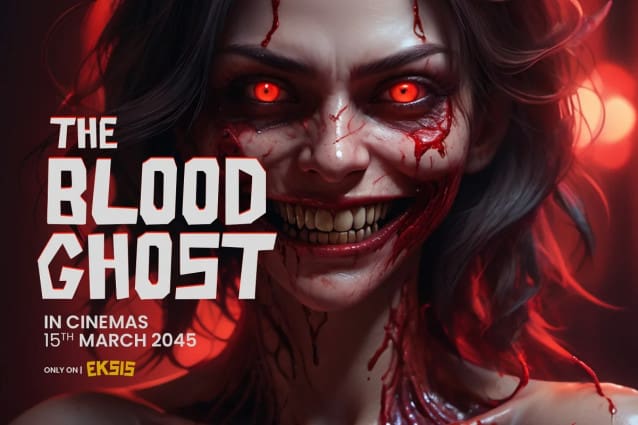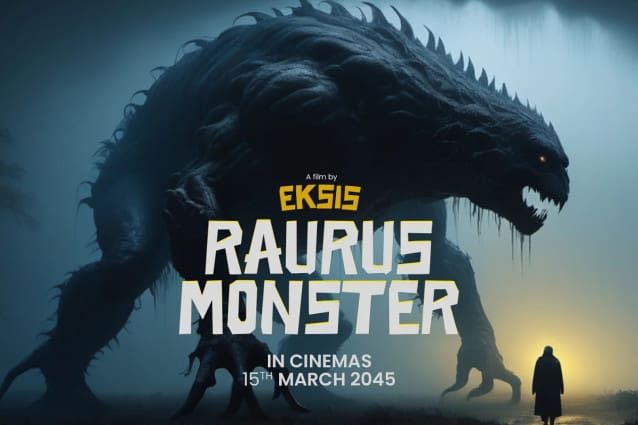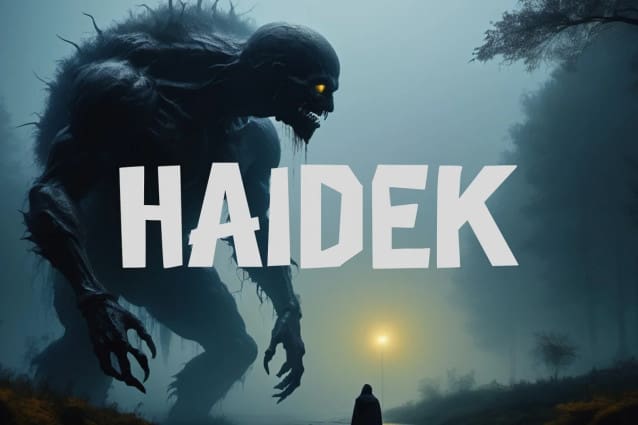
Haidek Display Font
Haidek Display Font is an ideal font for flyers, brochures, business cards, logos, and other design projects should be legible, versatile, contemporary, visually pleasing, and feature a broad character set, making it a reliable choice for a wide array of design applications.